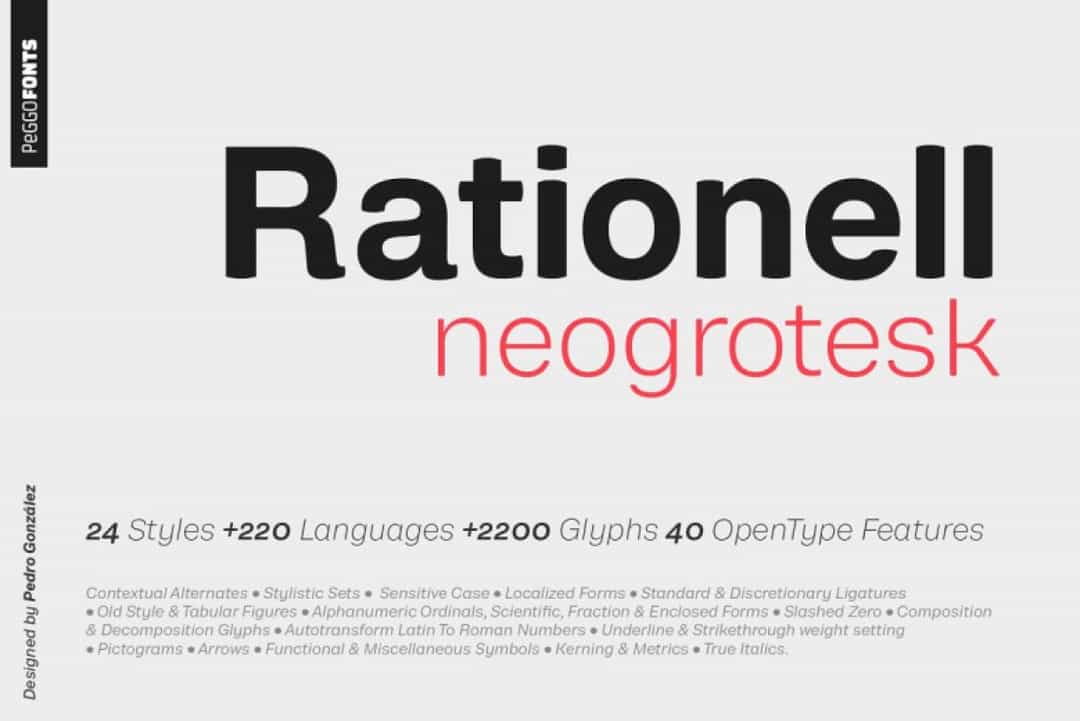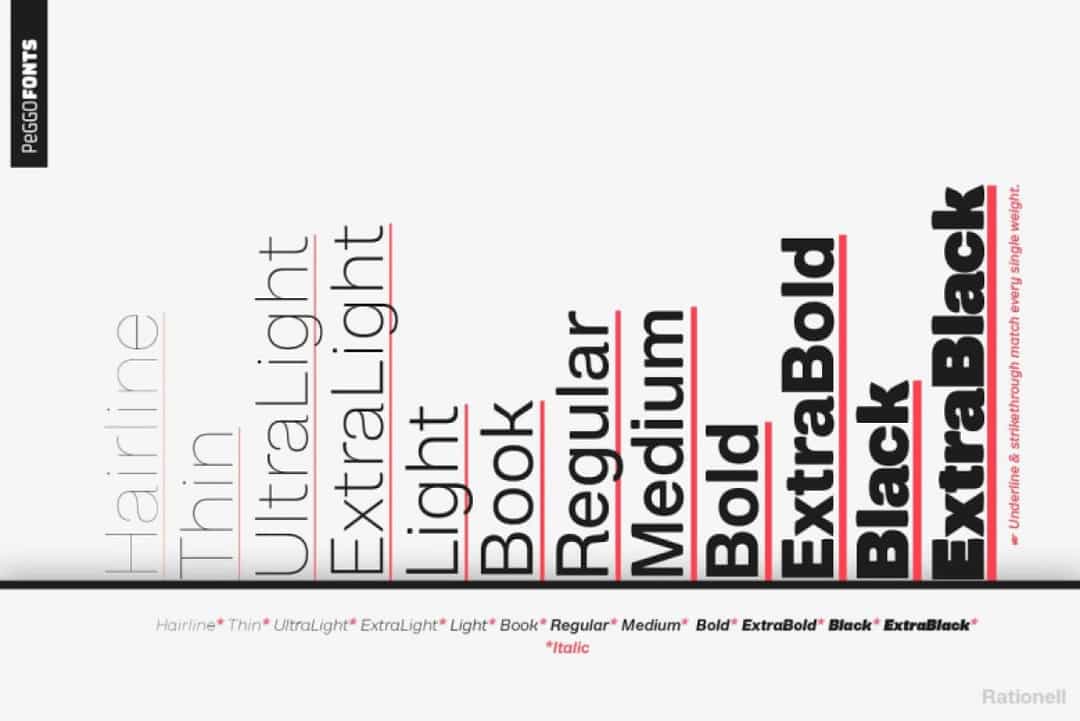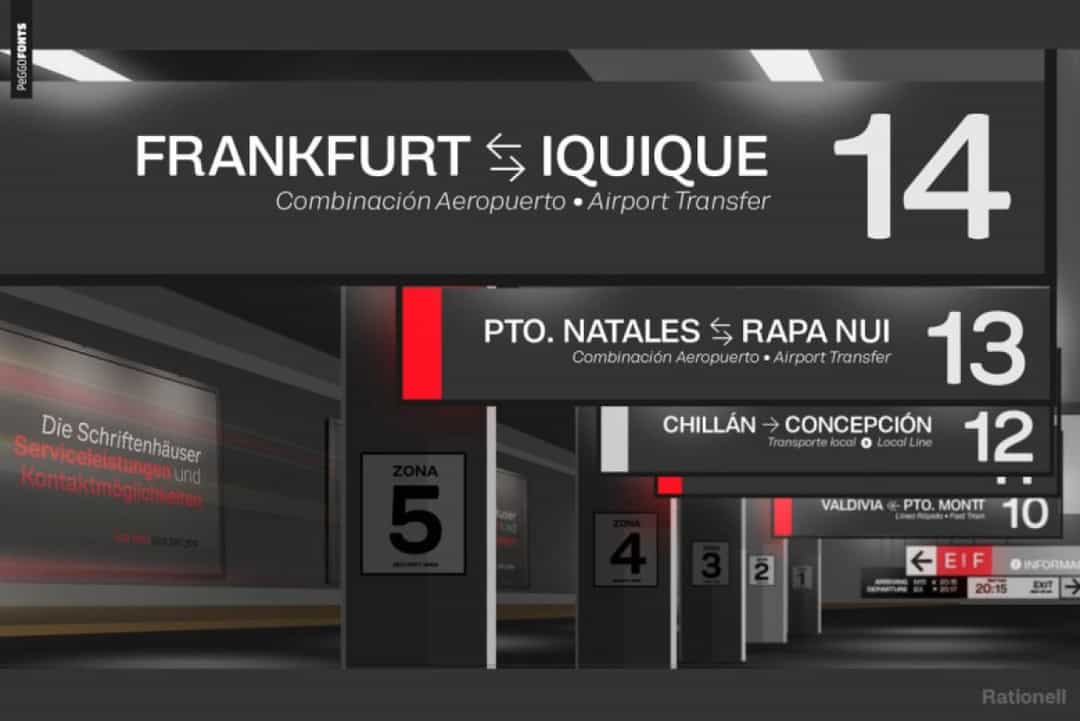
Rationell is a multi-functional commercial sans-serif font created to fulfill multiple uses, inspired by Swiss rationalalism of the 1950s while subtly adapting modernist structures from 19th century Europe – with particular consideration given to Latin dialect.